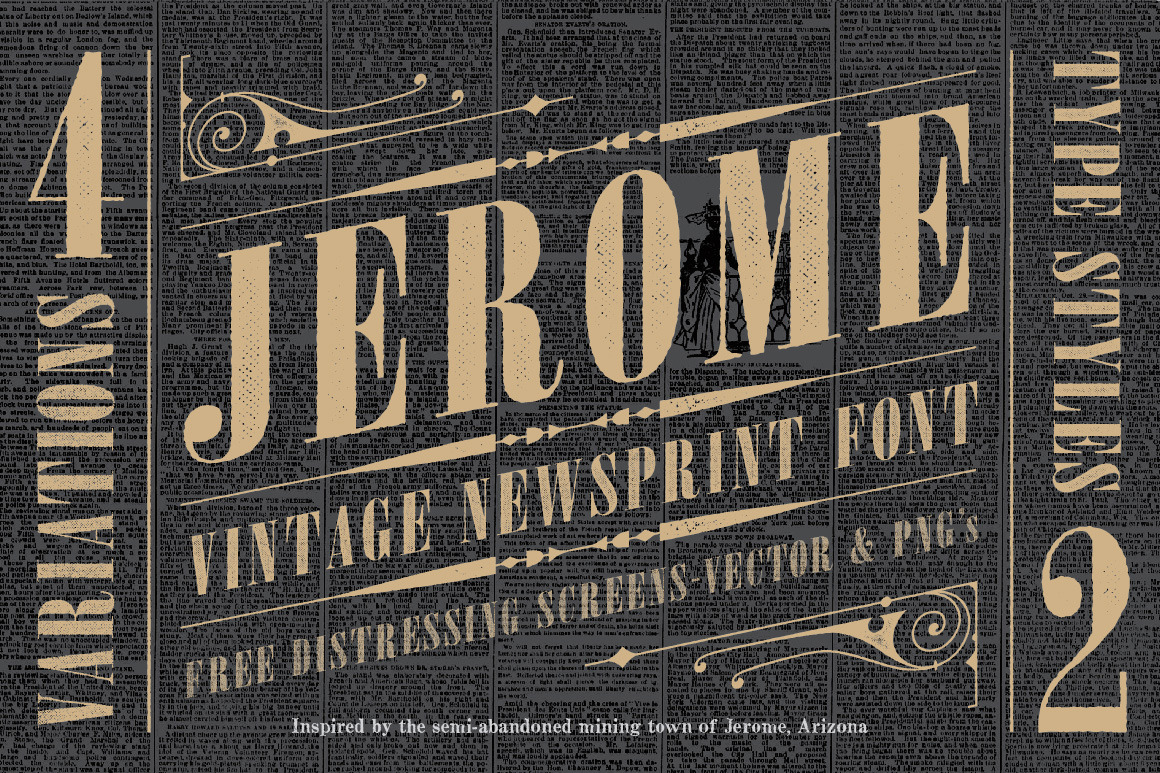
Jerome Vintage Typeface
This font family release is inspired by the semi-abandoned mining town of Jerome, Arizona. It is reminiscent of the classic condensed and wide-serif headlines you might find in the newspapers or painted on storefront signs from that era.
JEROME ONE (which has a rough, hand-drawn outline) and JEROME TWO-FOUR (which has the same rough, hand-drawn outline as well as varying degrees of distressed halftone) are supplied in both .OTF and .TTF versions. Each font has upper and lower case as well as numbers and special characters. This family supports multi-lingual so If I have missed anything please let me know. A set of matching wide versions of each style is also included. All version have built in imperfections that will display differently at different point sizes. The letter spacing is intentionally loose to give it that old-time look and feel.